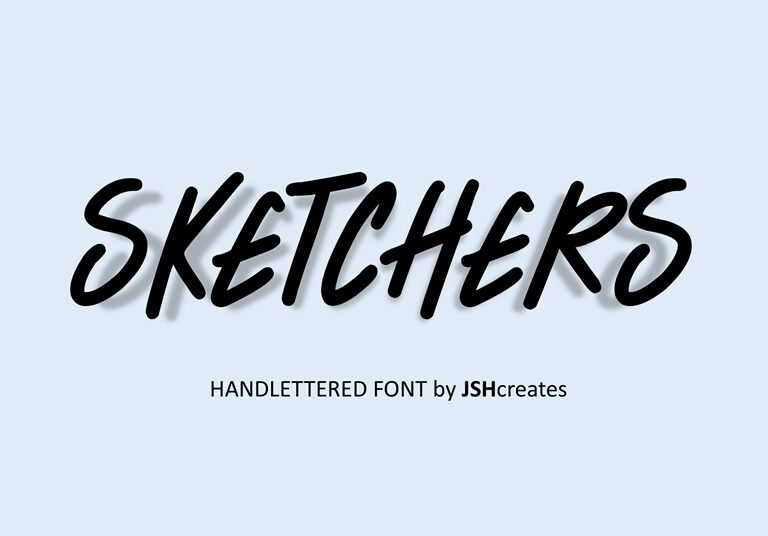
Sketchers
Sketchers font is a handwritten, condensed typeface designed by JSH creates. With its casual, energetic, and informal style, this brush-like font gives a modern impression to any visual display including branding designs and print or digital publications.
The free font can be greatly used for headings, posters, book covers, t-shirts design, children’s books, packaging designs of your favorite snacks and cereals brands. Website design headers too!